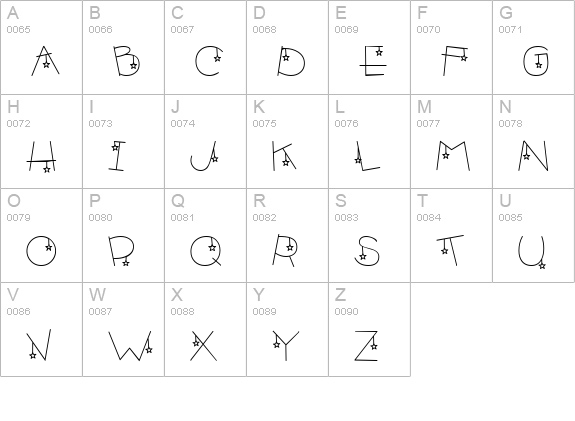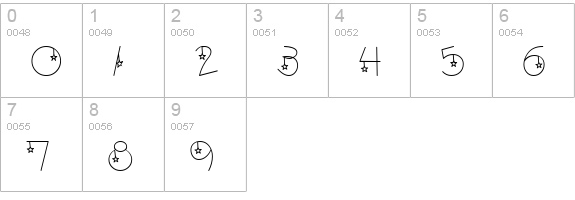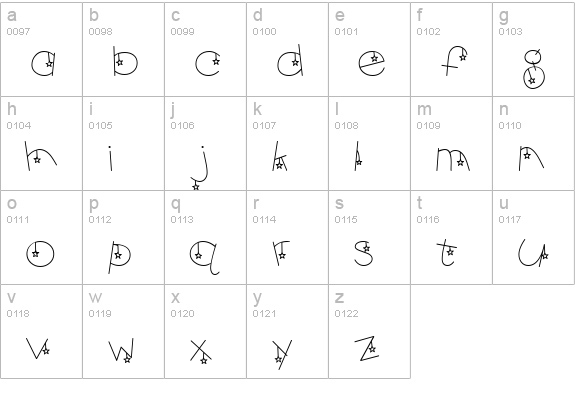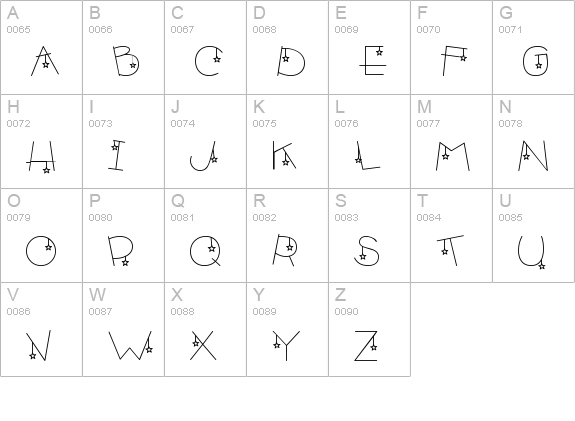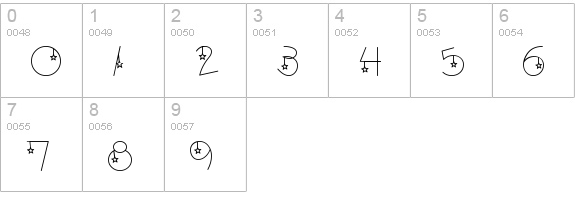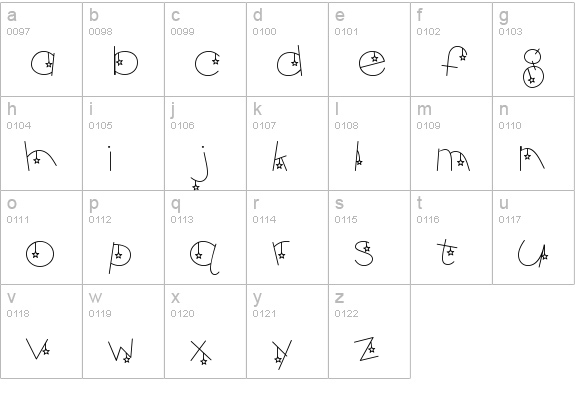
Introducing Ck Stars font, a delightful and whimsical typeface that is sure to add a touch of charm to your designs. This playful font features unique star-shaped characters that will make your text stand out and sparkle. Whether you're creating posters, invitations, or greeting cards, Ck Stars font is the perfect choice for adding a fun and festive touch. The best part is that Ck Stars font is completely free to download at FontsMarket.com. So go ahead and give your projects a touch of magic with this delightful and charming font. Let your creativity shine with Ck Stars font!